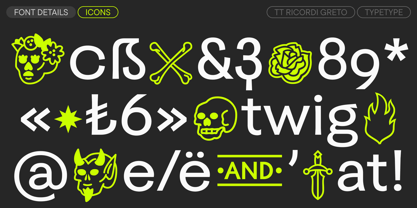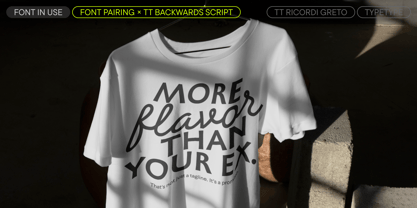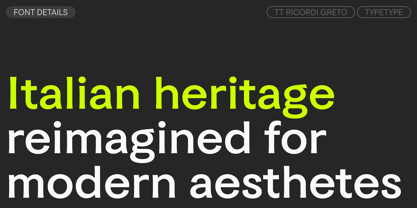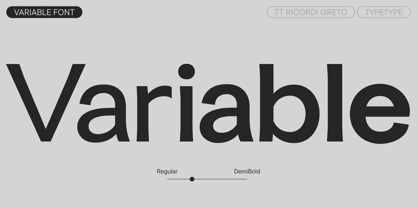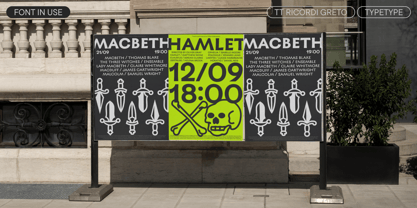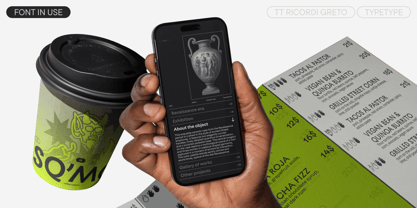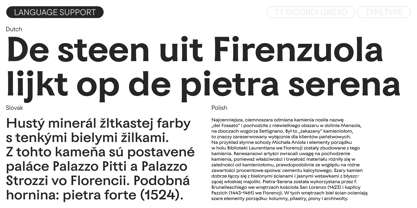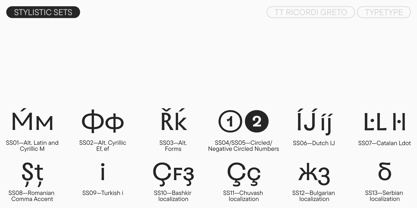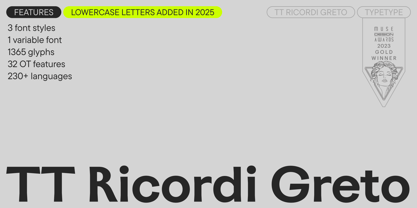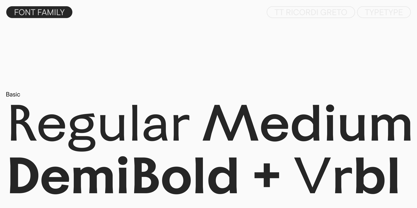
TT Ricordi Greto
Introducing TT Ricordi Greto version 2.000—a contemporary Florentine sans serif that bridges historical elegance with modern typography! We've expanded the character set, added new features, alternate forms, and extended language support to enhance your creative possibilities.
TT Ricordi Greto is the brainchild of designer Ksenia Karataeva and marks the fifth release in our distinctive TT Ricordi collection. This unique series rediscovers typographic treasures from ancient inscriptions on plaques and stones, revitalizing them as contemporary typefaces for today's designers.
Inspired by a 1423 floor inscription in Florence's Basilica di Santa Croce, TT Ricordi Greto strikes a perfect balance between trendy modern aesthetics and authentic historical details. The result is a typeface where Renaissance character meets contemporary design sensibilities.
As a low-contrast Florentine sans serif with dynamic proportions, TT Ricordi Greto stands as the only sans serif in the otherwise serif-dominated TT Ricordi family. It retains subtle hints of serifs that nod to its historical origins while featuring closed apertures, dynamic proportions, and fluid terminals with distinctive curling and flaring stroke ends.
The typeface comes with an extensive collection of graphic icons (characters and objects), dingbats (flowers, stars, and teardrops), and thirteen catchwords. Each element has been meticulously crafted to complement the typeface's distinctive visual rhythm.
With this update, we've significantly expanded the character set. Specifically, we've added fully-developed lowercase characters (lowercase characters from the previous version can now be found in the small caps set), supplemented the extended Cyrillic and Latin alphabets, expanded the basic currency set, added numbers and currencies for numerators/denominators, oldstyle and oldstyle tabular figures, fractions, and double ligatures for all forms of "ДД" and "дд." We've also added new OpenType features, language support, and stylistic sets—particularly alternative forms of "Kk," "R," "Кк," "Жж," "Яя" with straight legs.
This is a display font that looks contemporary and attracts attention. It's perfect for magazine covers, product packaging, signage, posters, and billboards, as well as for branding and web use.
TT Ricordi Greto version 2.000 includes:
• 4 styles: 3 upright and 1 variable font that changes along the weight axis
• 1,365 glyphs in each style
• 32 OpenType features
• 13 stylistic sets
• Support for over 230 languages
TT Ricordi Greto—Florence's timeless beauty captured in type!